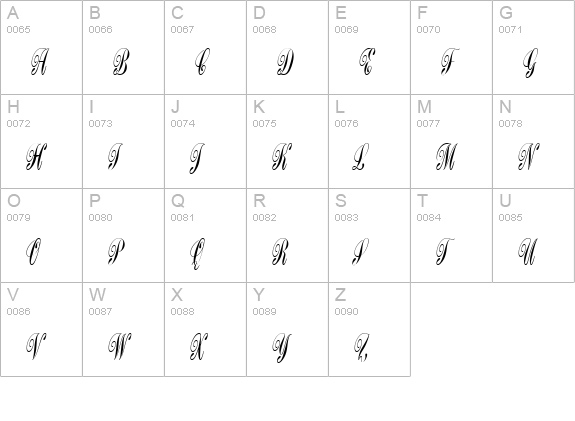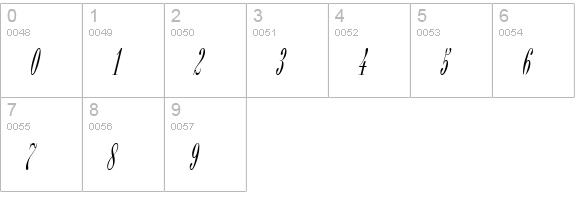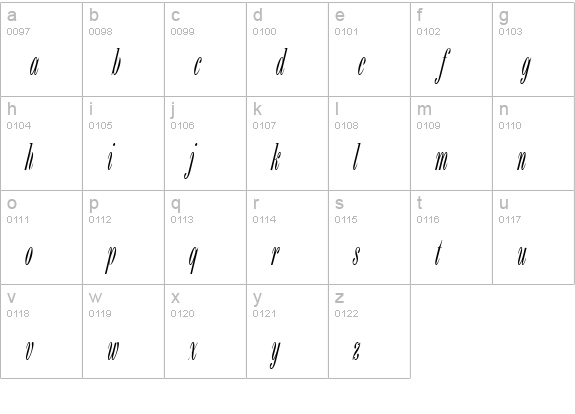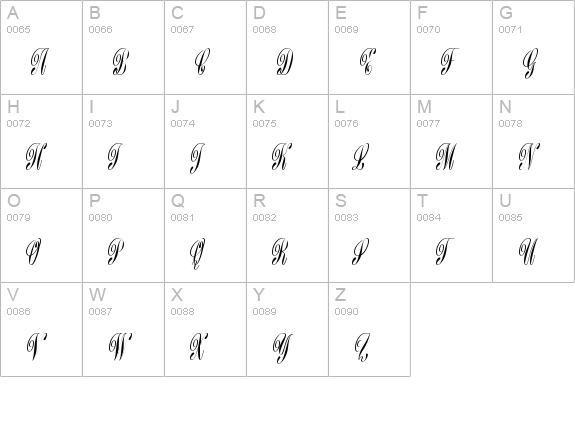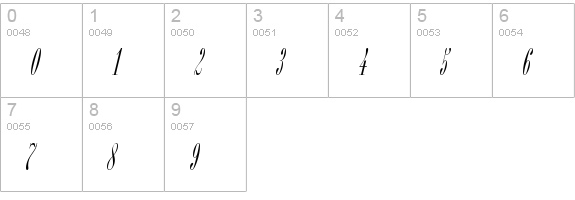
Bordeaux ICG Script font is a beautifully crafted typeface that exudes elegance and sophistication. Its flowing curves and delicate strokes create a sense of luxury and refinement, making it perfect for adding a touch of class to any design project. The font is versatile and can be used for a wide range of applications, from wedding invitations to branding materials. What makes Bordeaux ICG Script font even more appealing is that it is available for free download at FontsMarket.com. This means that you can easily access this stunning font without any cost, making it a valuable addition to your font collection. Don't miss out on the opportunity to enhance your designs with the timeless beauty of Bordeaux ICG Script font. Download it today and elevate your projects to new heights of sophistication and style.